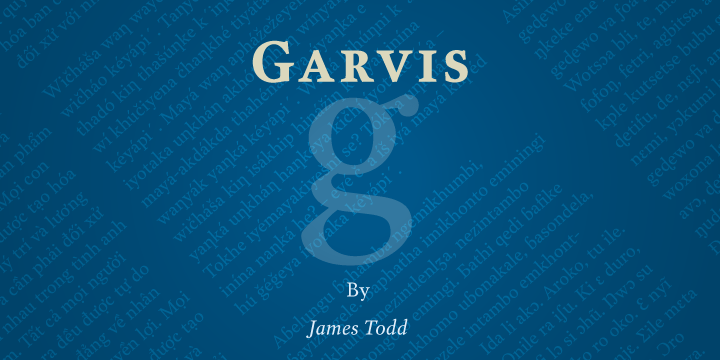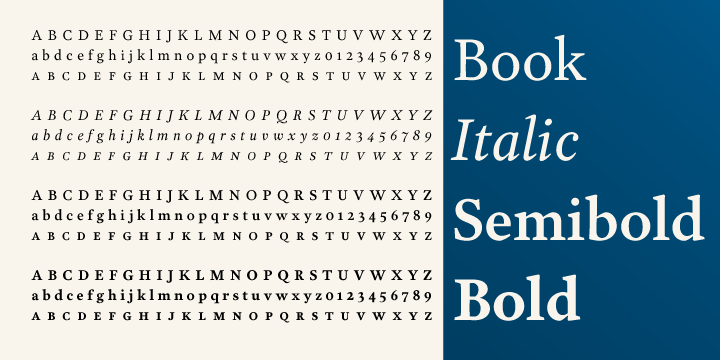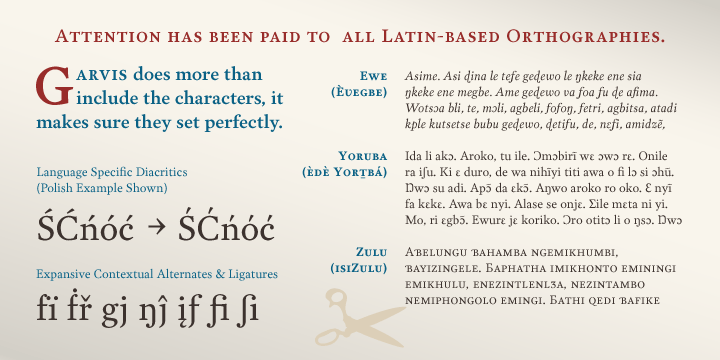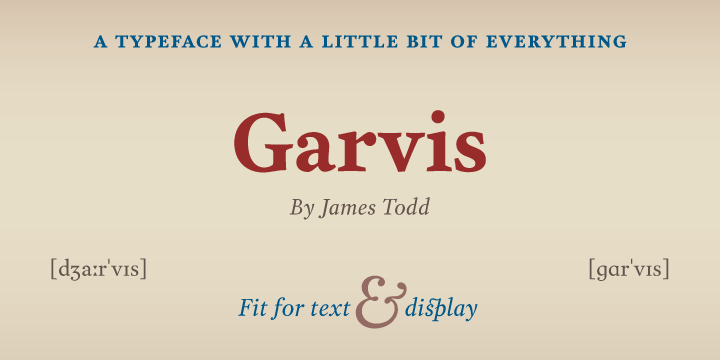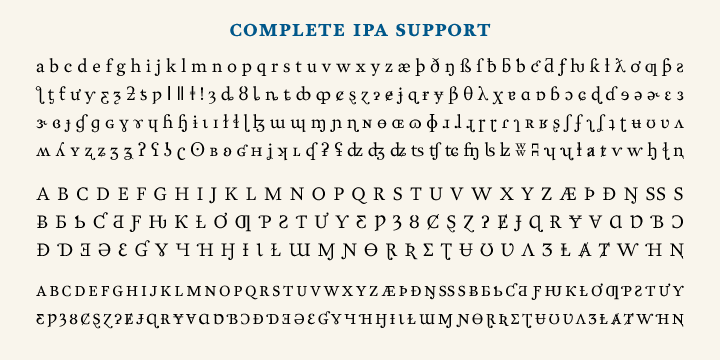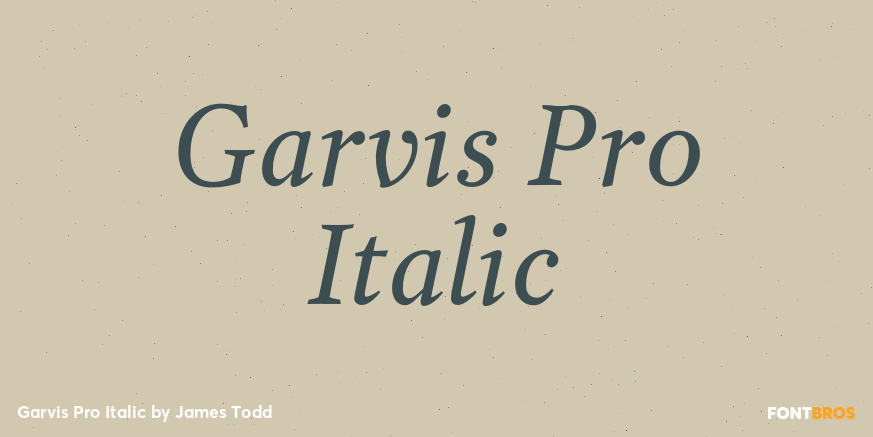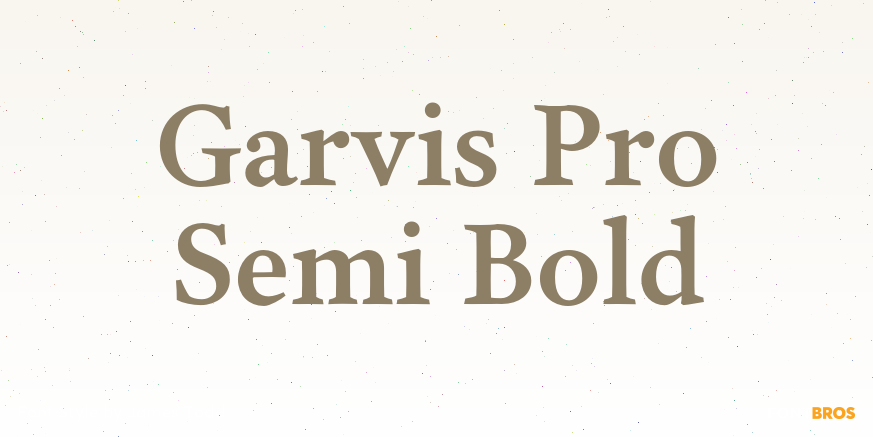
Garvis Pro
Font Family by James Todd
Inspired by both turn of the century neoclassical forms and Dutch Fleischmann Type, Garvis is designed to bring the character of those typefaces into more modern times by increasing the sturdiness of the forms without losing their character.
At display sizes, this typeface displays the subtle inconsistencies commonly found in traditional metal type printing. This detail is designed to virtually disappear at text size so as not to become distracting while still giving the text a warm, human quality.
Garvis includes support for all contemporary (and many historic) Latin orthographies as well as complete IPA support.